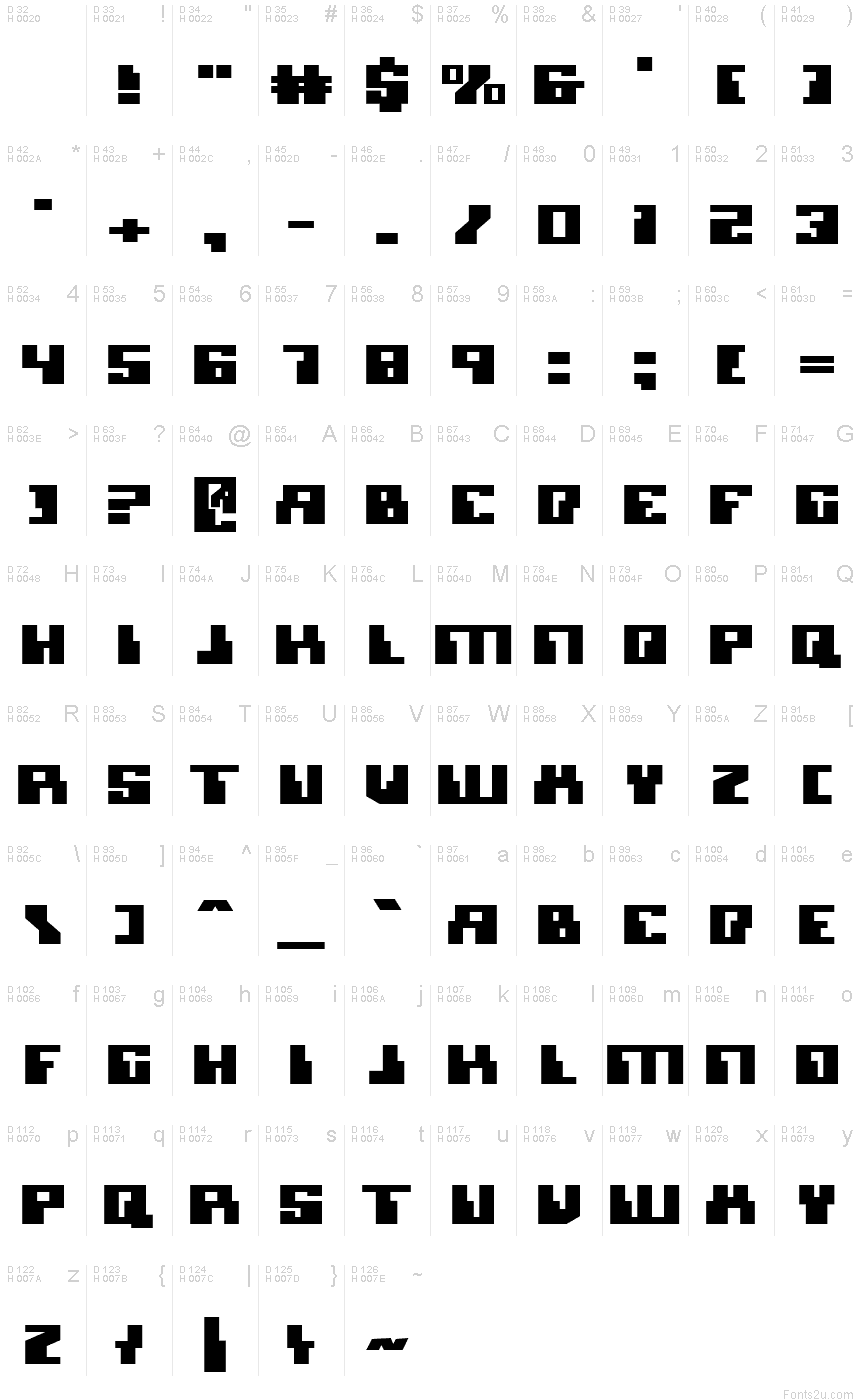
Micronian Expanded by Daniel Zadorozny of Iconian Fonts is a free pixel display font built from rectangular strokes, extended proportions, and an unmistakably retro digital structure. Square notches cut into otherwise solid, slab-like silhouettes.
In game interfaces and digital graphics, the wide construction gives menus, title screens, status panels, and promotional artwork the look of an early electronic display. It also suits electronic music posters and technology packaging, where repeated right angles and stepped cut-ins can echo circuit diagrams, arcade cabinets, control panels, and modular illustrations rather than ordinary lettering.